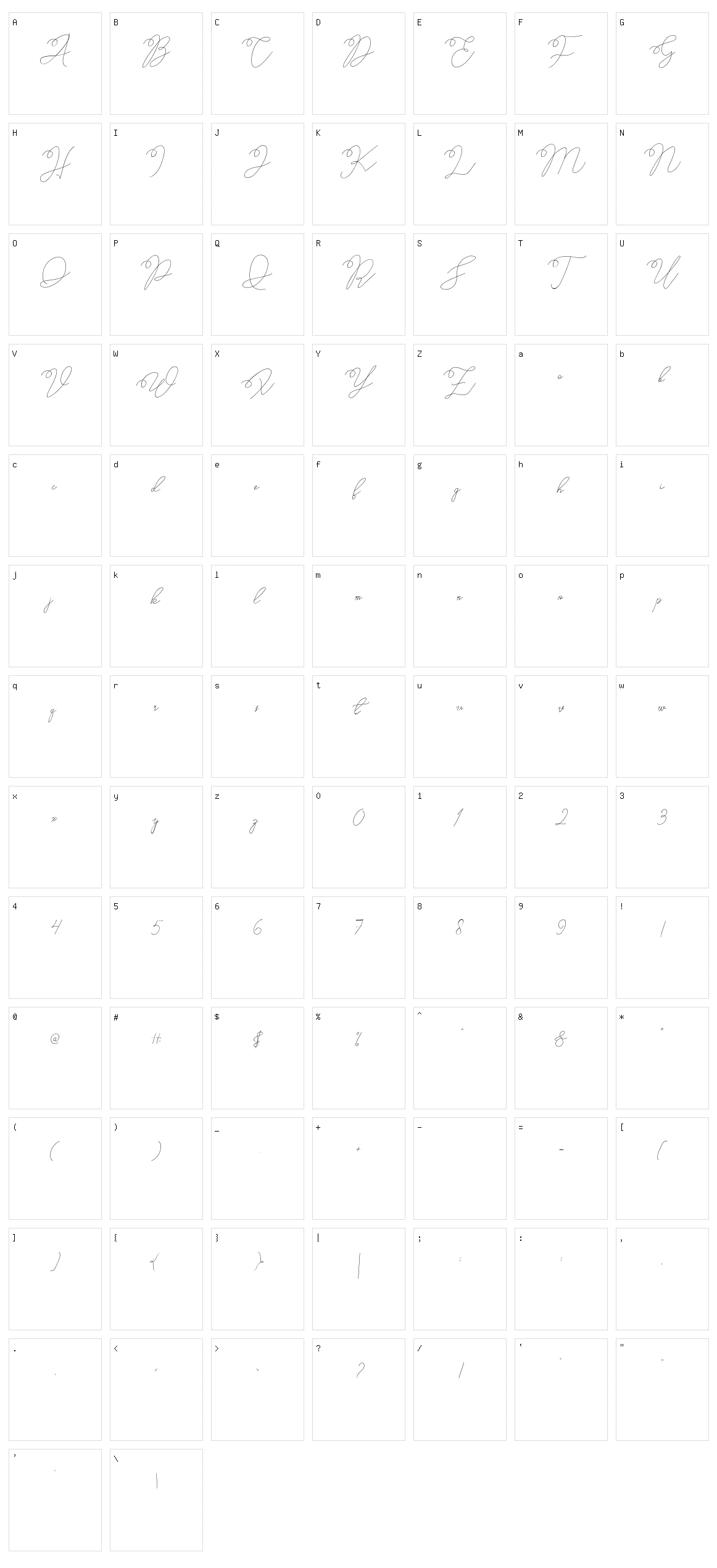
The free font Older Historica is carefully designed by Malindo Creative, showcasing a thoughtful balance of creativity and usability and falls under the Script font style. When you download the ZIP file, it contains only 21.15 KB of font files, making it lightweight and quick to download. Please review the license details below to understand permitted usage and distribution rights. If license information is not available, we recommend using this font for personal projects only or contacting the author directly for commercial usage permissions.